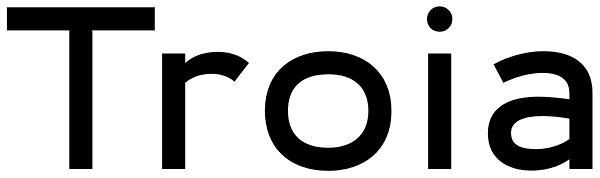
Troia
Troia Font Family comes in three weights; normal and italic. In addition, with rounded corners, each weight has its own smoother version. Thanks to its large letters and added spaces between the letters, this font can be used to get perfect results...